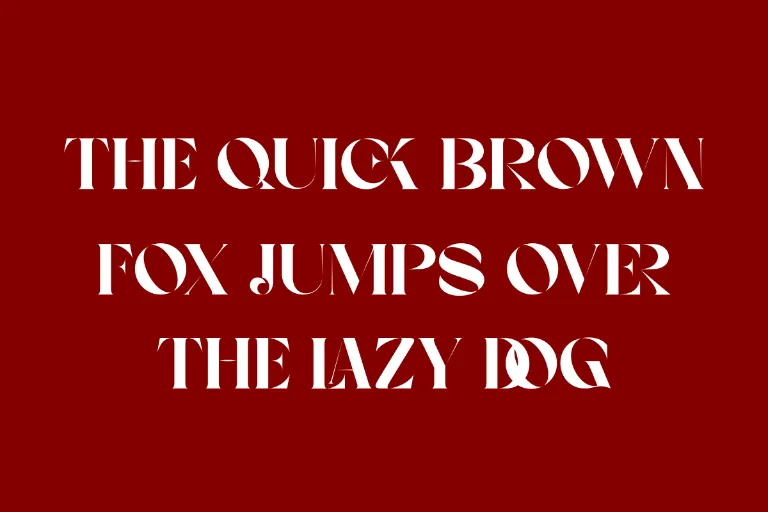
Bright Agnia Font
Bright Agnia is a serif font that beautifully merges traditional elegance with a fresh, modern twist. Designed with balanced proportions and detailed serif elements, this typeface stands out with its luxurious and professional appeal. As a serif font, Bright Agnia offers both visual charm and functional clarity, making it an ideal choice for designers seeking timeless sophistication in their work.
This font comes in two distinct styles to suit a variety of creative needs. The Regular style showcases a classic, graceful structure that works perfectly for body text, editorials, and refined branding projects. It maintains excellent readability while adding a touch of class to any layout, whether in print or digital formats.
The Oblique style introduces a bold, slanted version that brings energy and modern flair to the design. It’s an excellent choice for expressive headlines, artistic compositions, and dynamic branding elements. With these two versatile styles, Bright Agnia provides designers with the flexibility to craft visually stunning and distinctive typography.